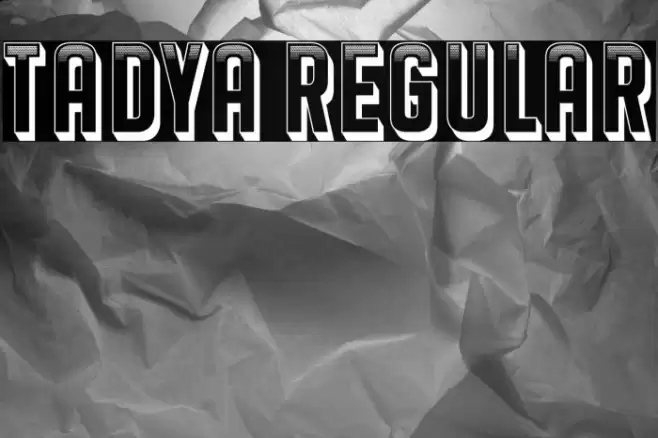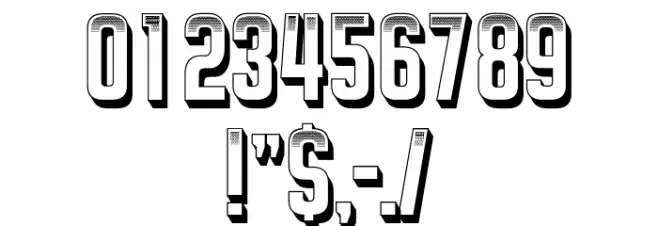
Tadya Regular Font
Tadya Regular Description
This font features a bold, three-dimensional appearance with a distinct shadow effect that gives it a striking and impactful look. The uppercase letters are strong and commanding, with a geometric structure that adds to their boldness. The numbers and special characters maintain this robust style, ensuring consistency across all glyphs. The font's design incorporates a subtle gradient effect within each character, enhancing its depth and visual interest. This makes it particularly suitable for projects that require a dramatic and eye-catching typeface.
A bold, three-dimensional font with shadow effects and geometric structure from Uncategorized fonts.
- Proposed Projects: Ideal for posters, headlines, logos, and any design requiring a dramatic and impactful typeface.